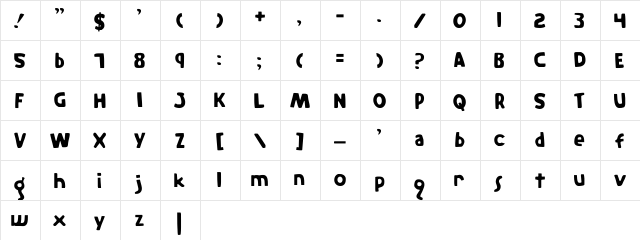
The Rifleman Regular
Design Context for The Rifleman Typeface
The Rifleman is a composed and adaptable typeface that performs quietly and consistently across a wide range of design contexts.